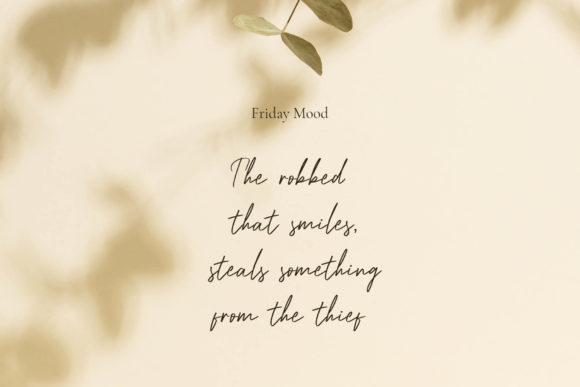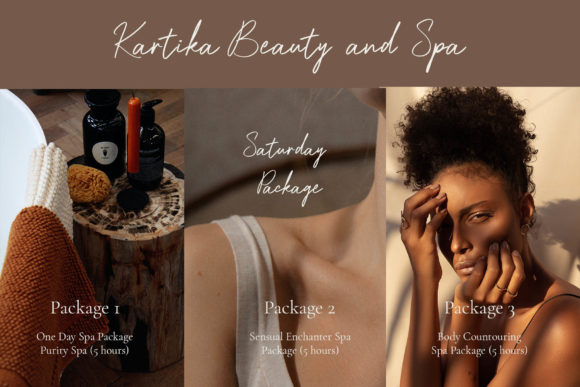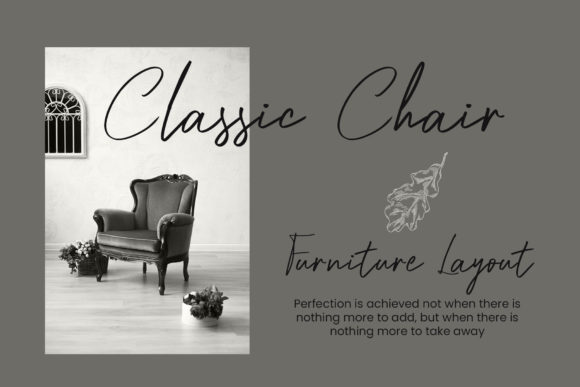
Introduction to Mastels Font
Do you remember that moment when you stumbled upon the perfect design inspiration, and your creative project suddenly felt alive? For designers, it’s a feeling that’s hard to replicate, but it’s a reminder of why we love our job in the first place. In that instant, all the pieces come together – colors, textures, typography – and you know you’re onto something special.
For those moments, you need a font that’s not just aesthetically pleasing, but also versatile and high-quality. That’s where Mastels Font comes in – a lovely and delicate script font that exudes elegance and class, making it the perfect design resource for any creative project. Whether you’re working on a branding project or a digital design, Mastels Font is a valuable addition to your toolkit, available for a free download with a transparent background.
Key Features of Mastels Font
- Designed with precision and attention to detail, ensuring a crisp and clear appearance at resolutions up to 300 DPI.
- Unique characteristics include a modern, minimalist aesthetic and a versatile font family with multiple styles.
- Perfect for designers looking for a high-quality, free design resource to elevate their creative project.
Honest Review: Mastels Font
As a designer, I’m always on the lookout for high-quality fonts to elevate my creative projects. Recently, I stumbled upon the Mastels Font, and I’m excited to share my honest review with you.
- ✨ The font is incredibly versatile and can be used for a wide range of design projects, from logos to typography-heavy designs.
- ✨ The design is sleek and modern, with a clean and minimalist aesthetic that’s perfect for contemporary design projects.
- ⚠️ The font is not ideal for projects that require a transparent background, as it’s a solid design.
- ⚠️ Some users may find the font to be a bit too minimalist, which may not be suitable for all design styles.
Overall, I’m impressed with the Mastels Font. It’s a great addition to any designer’s toolkit, and its free download makes it an excellent resource for designers on a budget. While it may not be perfect for every project, it’s definitely worth considering for your next creative endeavor.
Mastels Font
Use the Mastels Font in conjunction with a transparent background to create a unique and eye-catching design.
Experiment with different font sizes and styles to add depth and visual interest to your design.
The Mastels Font is perfect for:
Logo design: The unique style of the Mastels Font makes it ideal for logo design.
Brochure design: The Mastels Font can add a touch of elegance to your brochure design.
Infographic design: The Mastels Font can be used to create visually appealing infographics.